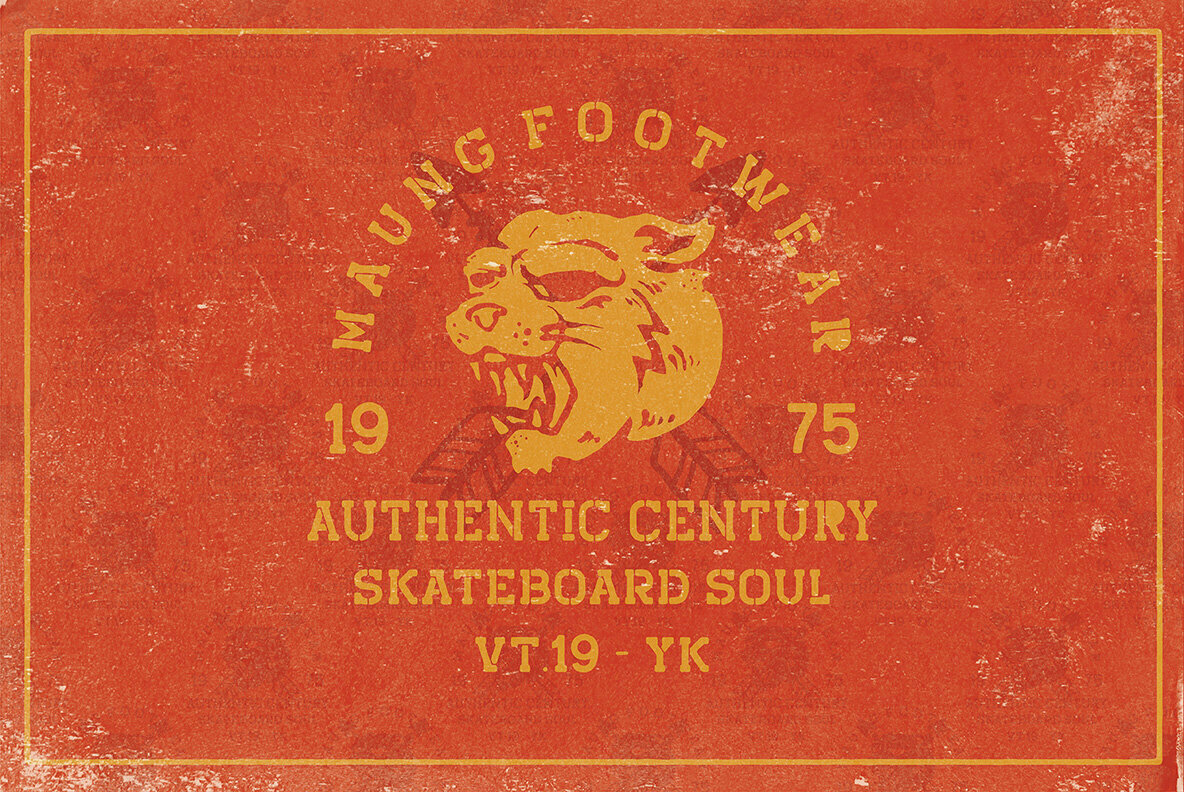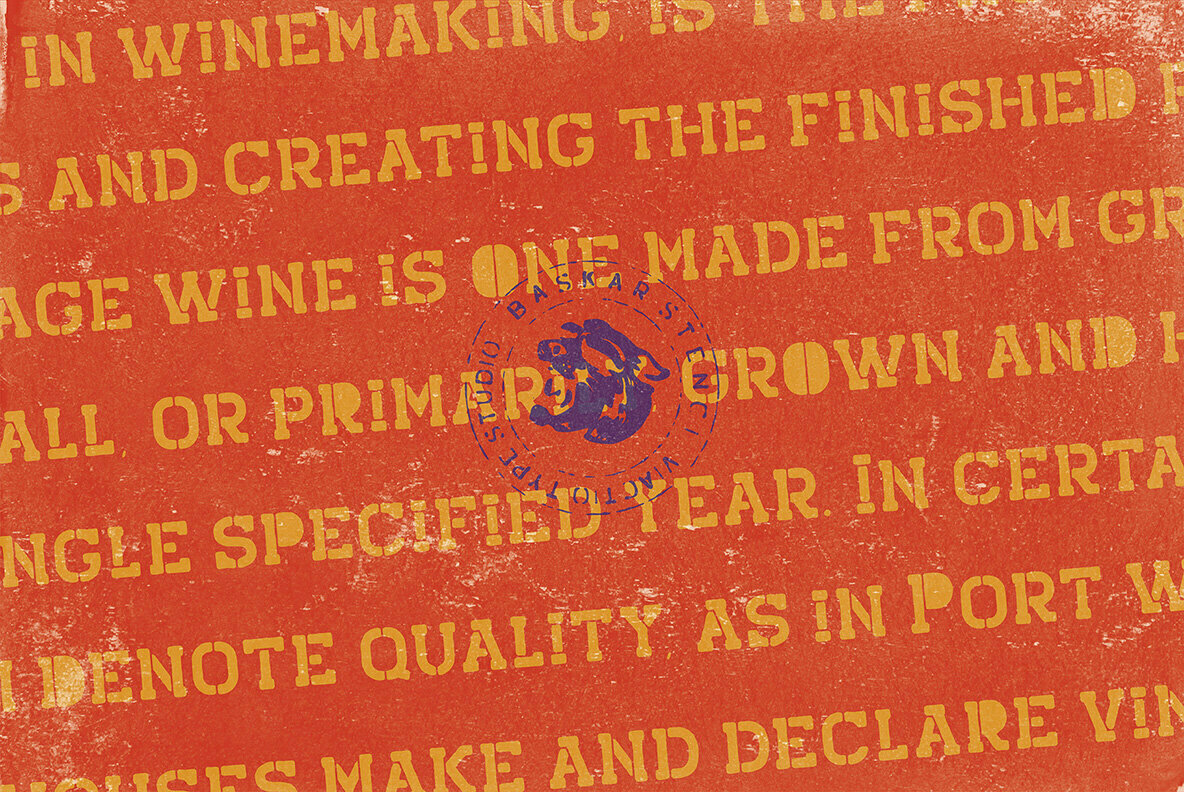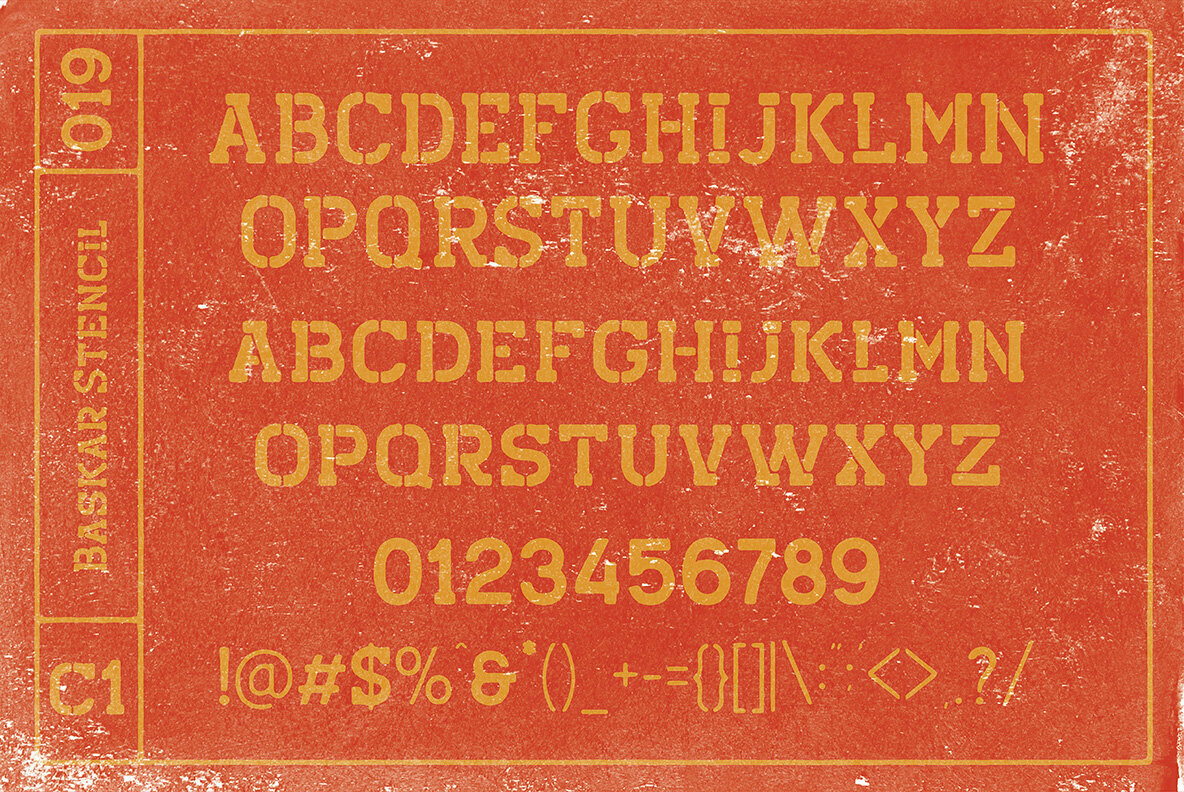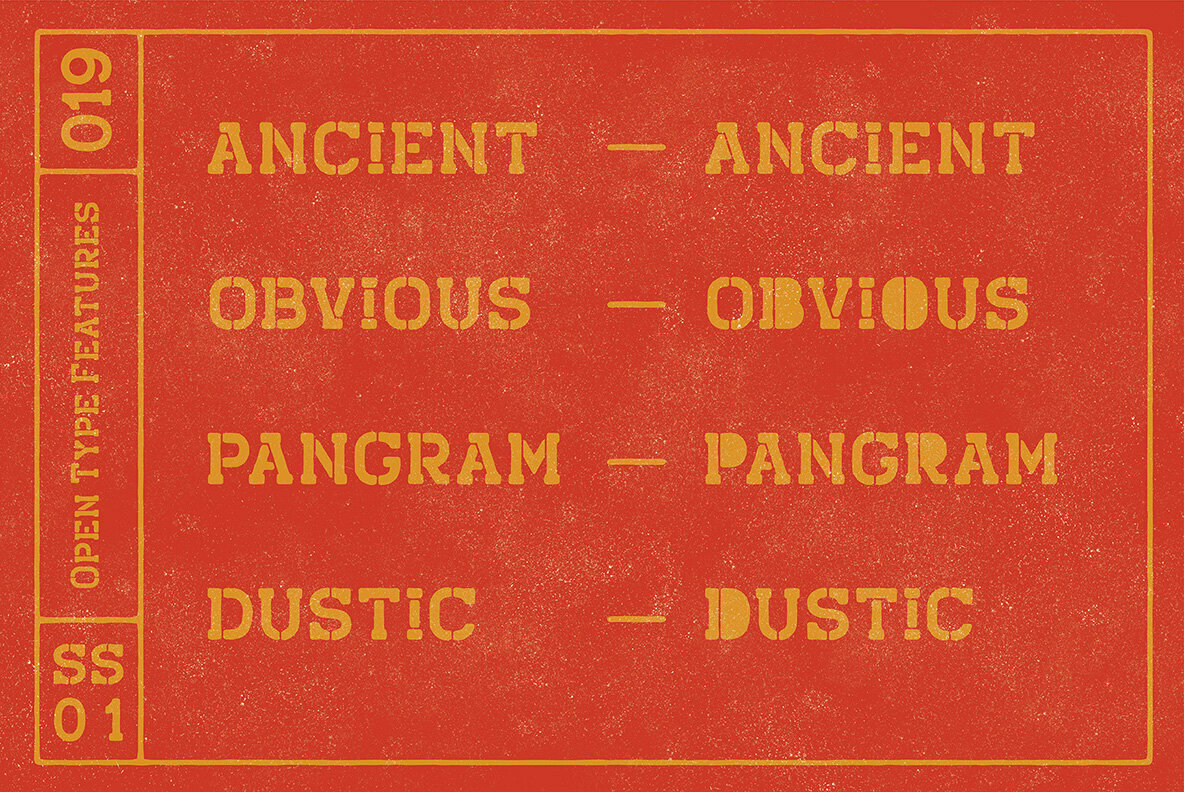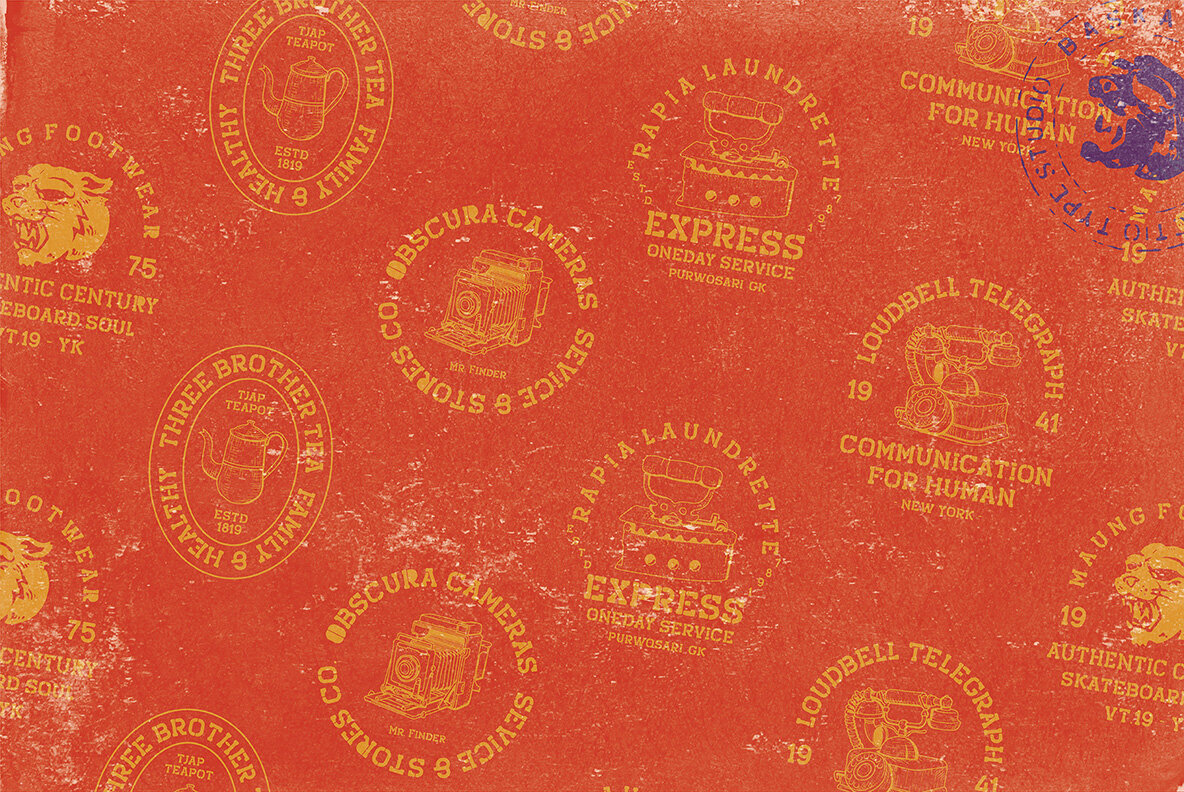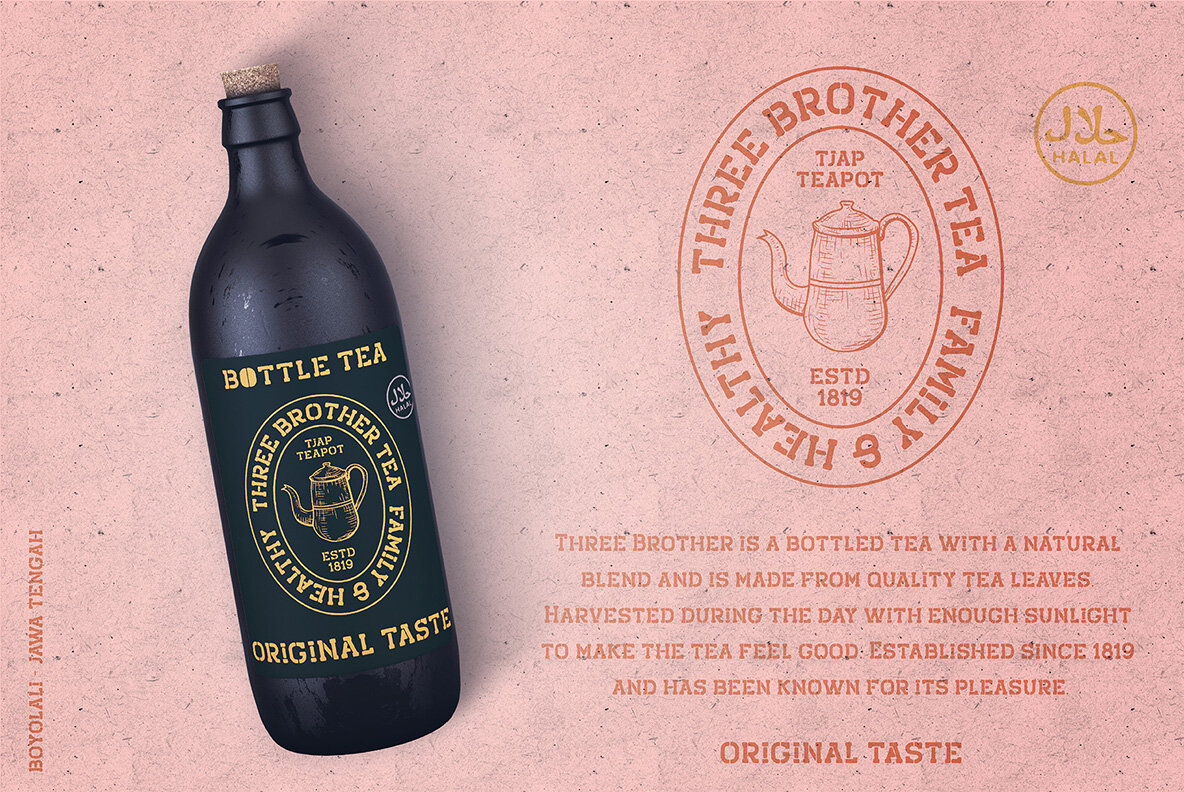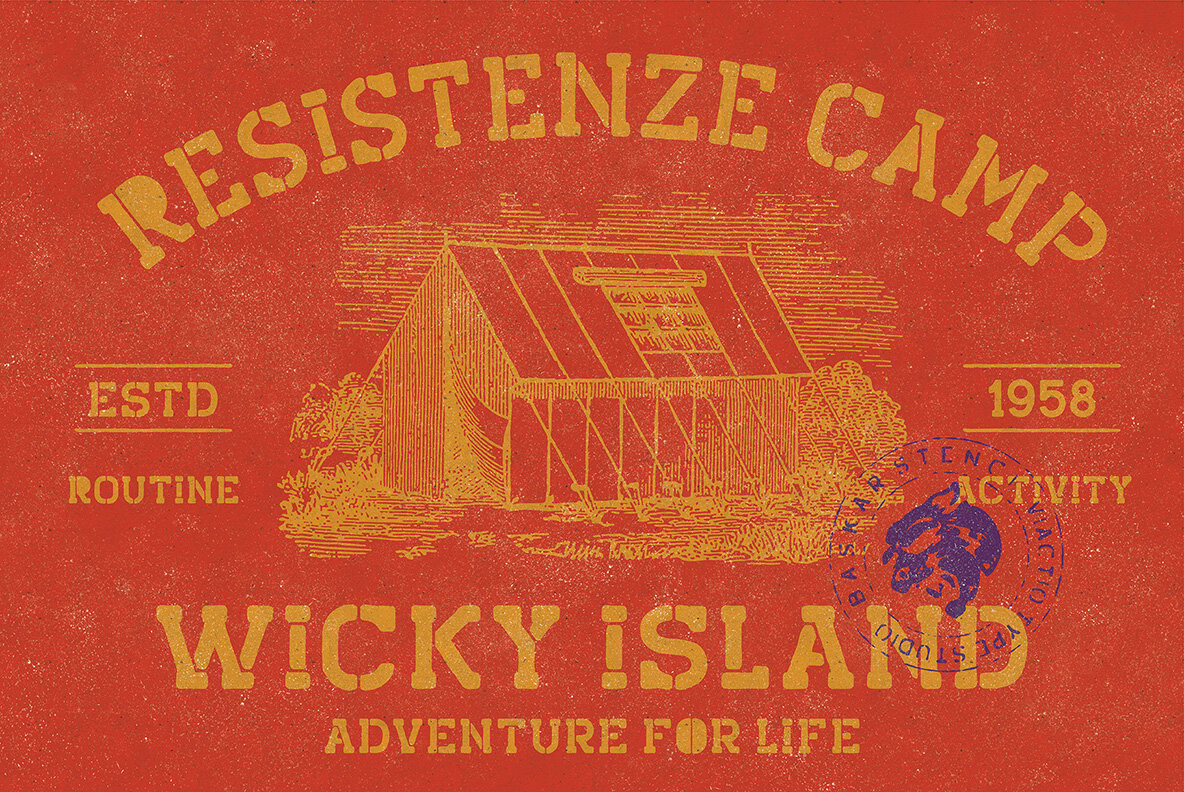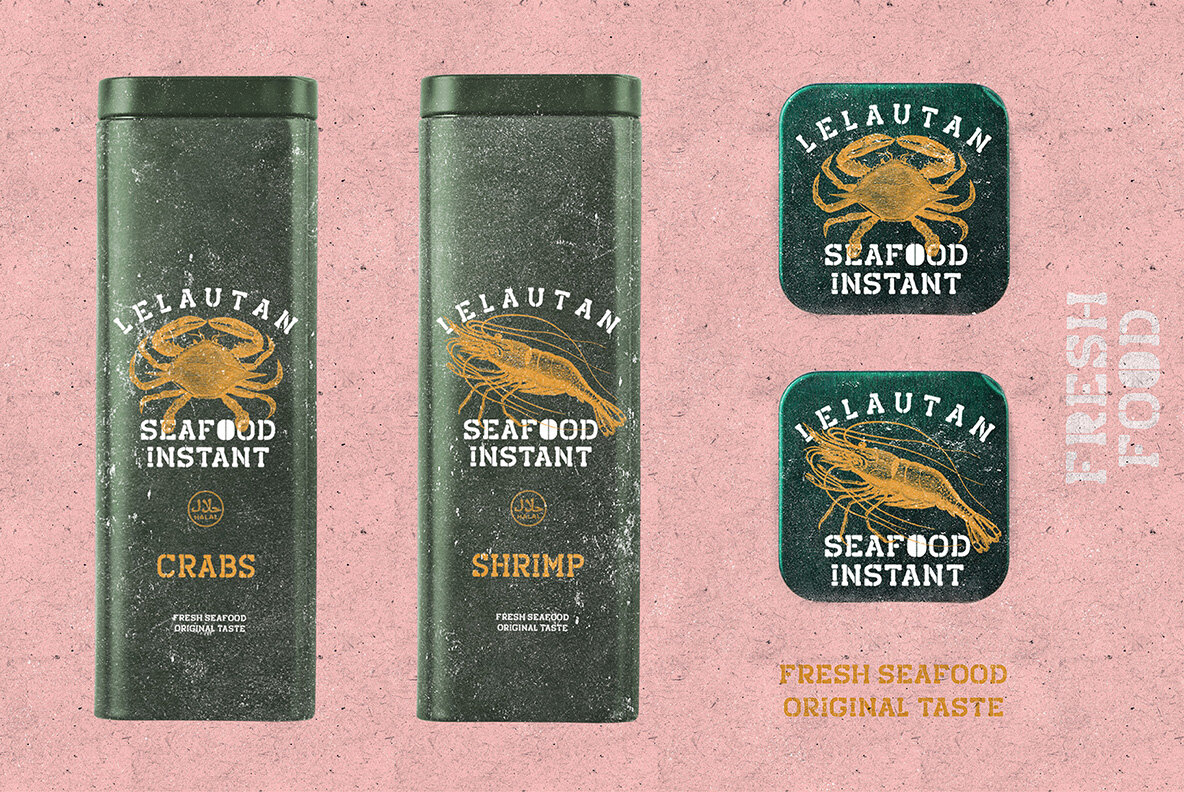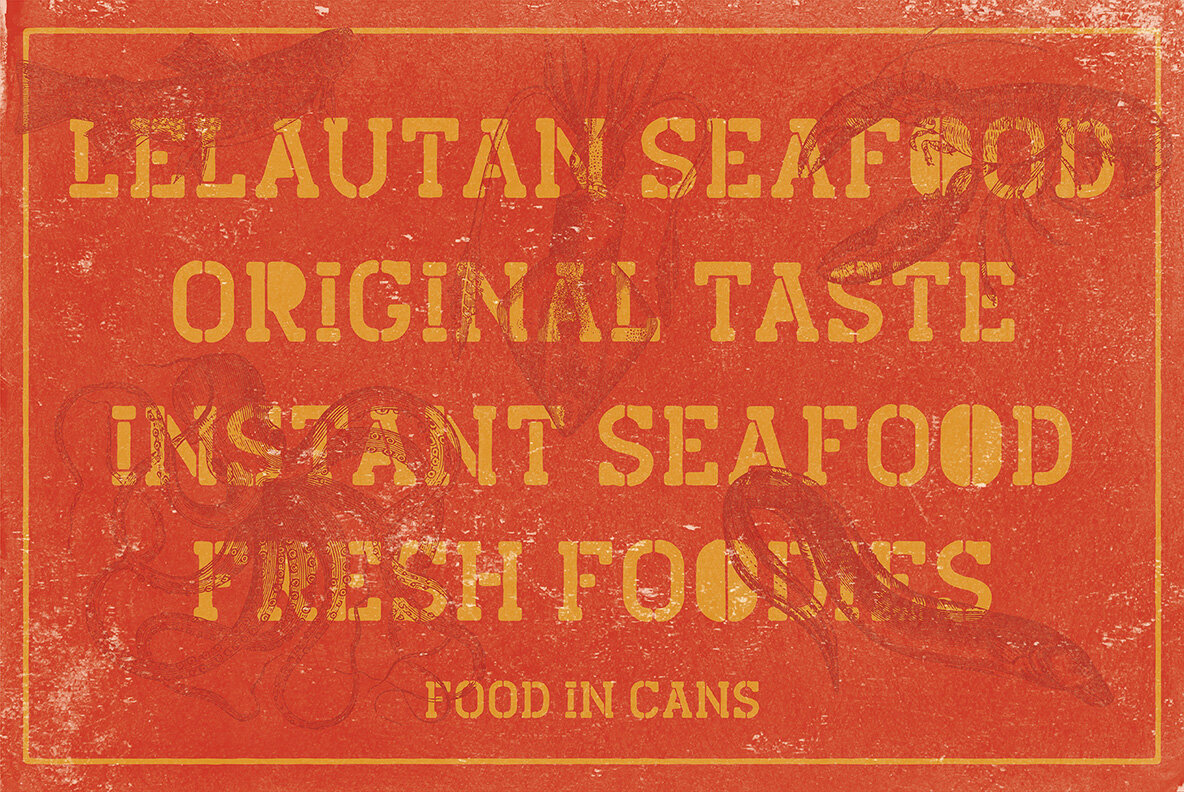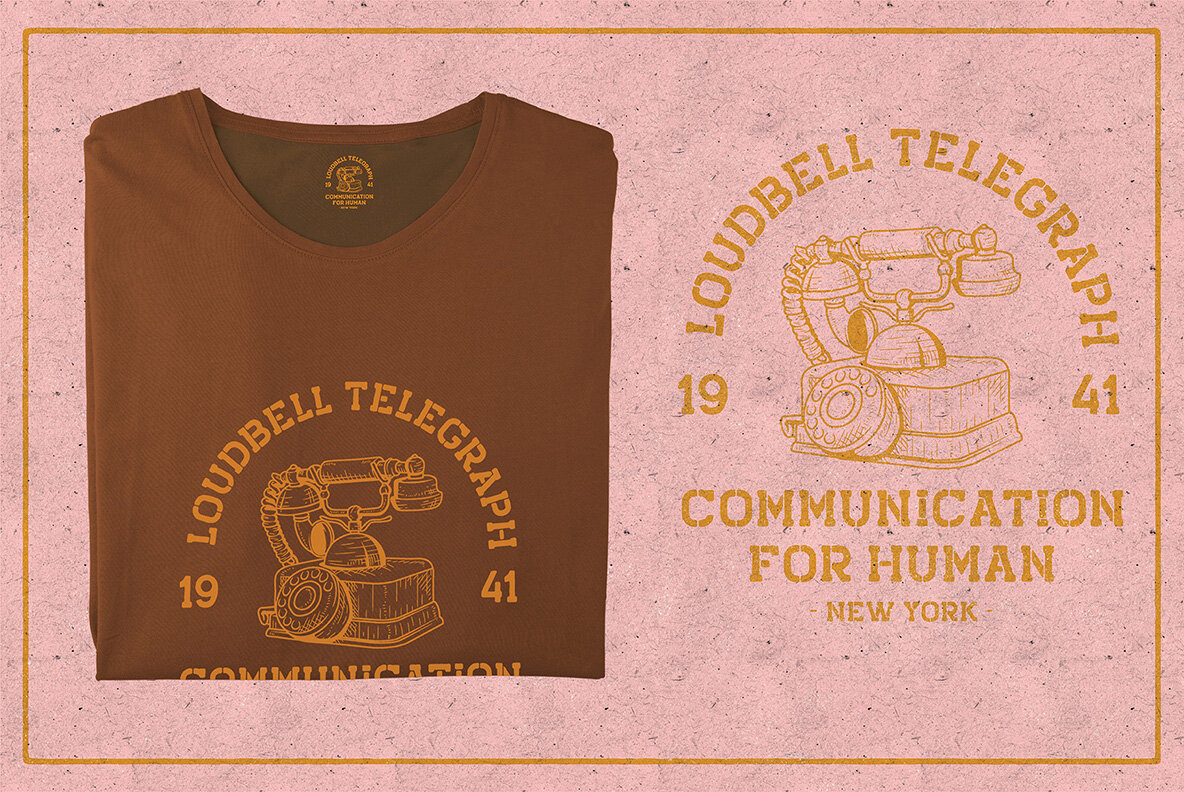
BASKAR Font
Baskar Stc
Baskar presents itself as an adaptable slab serif font that seamlessly fits into a wide array of design applications. Designed with care to include multilingual characters and stylistic alternates, Baskar offers the flexibility needed in dynamic creative contexts. Whether you're crafting engaging quotes, designing apparel, or developing vintage logos, this font serves as a reliable choice.Baskar: A Versatile Slab Serif for Diverse Creations
Designed with contemporary aesthetics, Baskar enhances visual storytelling across medium types, adding an extra layer of distinction to your designs.